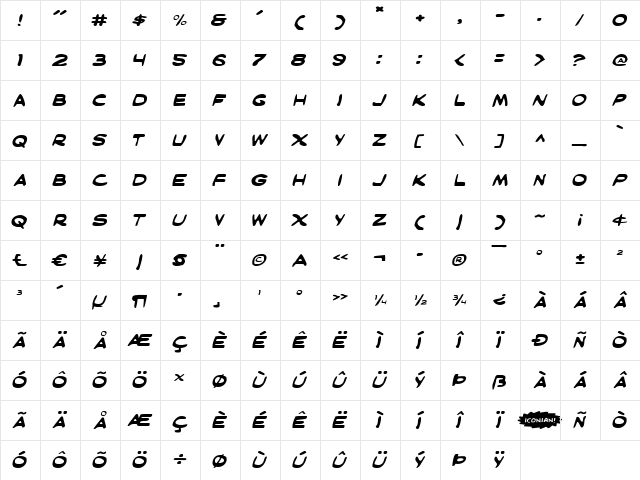
Masked Marvel Expanded Font Preview
Masked Marvel Expanded Expanded
Masked Marvel Expanded Font Details
| Style | Expanded |
Design Context for Masked Marvel Expanded Typeface
Masked Marvel Expanded offers clean, dependable letterforms without strong stylistic allegiance, making it a practical choice for designers who need flexibility.
Pro Tip: Use Masked Marvel Expanded in both headline and body roles to test its range before committing to a single application.